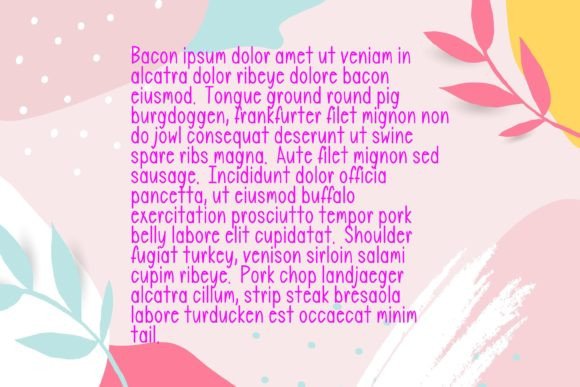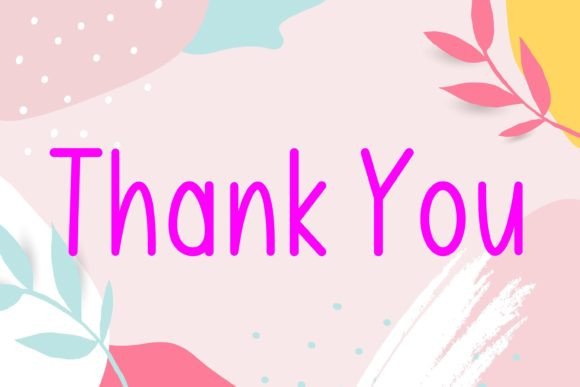
Introduction to Kazimir Font
As a designer, there’s nothing quite like the thrill of bringing a creative project to life. You’ve poured your heart and soul into every detail, from the initial concept to the final flourish. But sometimes, all it takes is the right font to elevate your design from good to great. That’s where the Kazimir Font comes in – a simple, friendly handwritten font that’s sure to brighten up your designs and leave a lasting impression.
With its whimsical, quirky charm, the Kazimir Font is the perfect addition to any project. Whether you’re crafting a logo, designing a wedding invitation, or creating a quote for social media, this versatile font is sure to add a touch of personality and flair. And the best part? It’s a high-quality design resource that’s free to download, making it a valuable asset for designers of all levels.
- Unique, hand-drawn style that adds a personal touch to any creative project.
Honest Review: Kazimir Font
As a designer, I’m always on the lookout for high-quality fonts that can elevate my creative projects. Recently, I stumbled upon the Kazimir Font and I must say, it’s been a game-changer.
What works well: ✨ The Kazimir Font offers a sleek and modern design that’s perfect for a wide range of creative projects. The font is highly customizable, making it easy to adjust the size, color, and style to suit your needs. Plus, it’s available for free download, which is always a bonus.
Limitations: ⚠️ While the Kazimir Font is a great resource, it does have some limitations. The font is not as extensive as some other options, and it may not be suitable for projects that require a wide range of font sizes and styles.
Overall, I’m impressed with the Kazimir Font and would highly recommend it to fellow designers. It’s a great addition to any design resource library and is sure to help take your creative projects to the next level.
Kazimir Font
The Kazimir Font is a versatile design resource that can be used in a variety of creative projects, including logos, brochures, business cards, and more. It’s perfect for designers who want to add a touch of elegance and sophistication to their designs.